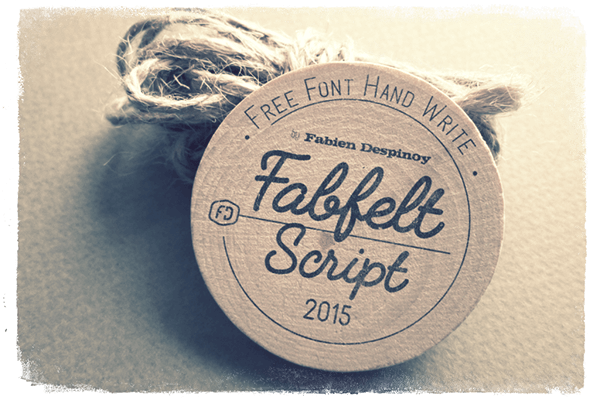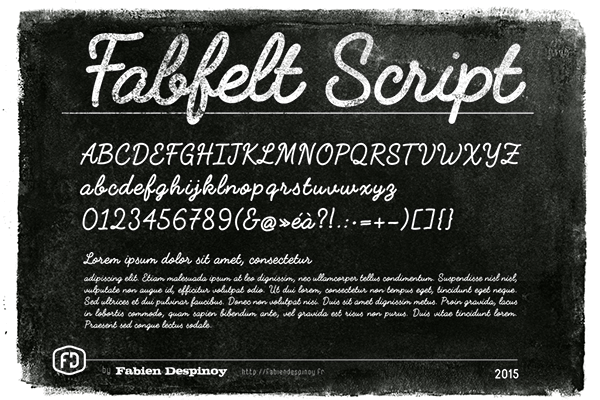
Fabfelt Script free handwrite typeface
Fabfelt Script is a handwrite typeface made with strong lines as the author’s image illustrate it’s ideal for a retro look, check out this cool type : )
Fabfelt script – Free Typeface
Fabfelt Script is a handwrite typeface made with strong lines as the author’s image illustrate it’s ideal for a retro look, check out this cool type : )
Fabfelt script – Free Typeface